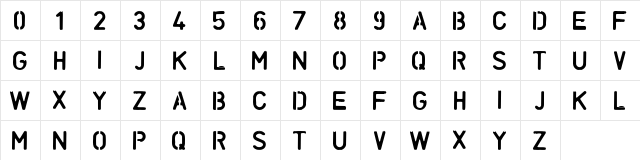
UNCONFORM ROUND
Design Context for UNCONFORM Typeface
UNCONFORM softens its letterforms with rounded terminals, giving it an approachable, friendly quality that works well in consumer-facing and digital contexts.
A natural fit for tech startups, health and wellness brands, children's products, and friendly consumer apps.
Font Pairing: Pairs well with a rounded or humanist sans for body copy, maintaining the friendly tone without relying on UNCONFORM to carry extended reading.
Pro Tip: Pair UNCONFORM with a geometric sans for a balanced system — the rounded softness works as a warm counterpoint to harder-edged companions.